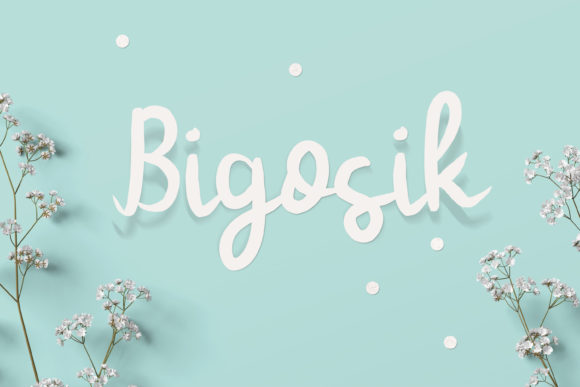
The Bigosik Font: A Simple yet Cheerful Companion for Your Design Journey
An Honest Review of Bigosik
- ✨ Simple and cheerful personality that adds a touch of warmth to any design
- ✅ Neat and flowing style that’s perfect for a wide variety of designs, from wedding invitations to craft projects
- 💫 Highly legible, even at smaller font sizes
- 🎨 Versatile and can be used for both digital and print projects
While Bigosik is an excellent font, it’s not without its quirks. For example:
- 🤔 It can be a bit too casual for very formal projects, such as corporate branding or law firm websites
The Story Behind Bigosik
Bigosik was designed by a talented font designer who wanted to create a font that was both simple and cheerful. The designer drew inspiration from traditional Polish typography and wanted to create a font that was both elegant and approachable. The result is a font that’s perfect for a wide range of design projects, from formal events to crafty DIY projects.
| Font Name | Bigosik Font |
| Author | DIGI Potwor |
| What is Bigosik? | Bigosik is a simple and cheerful handwritten font that’s perfect for a wide range of design projects. |
| Does Bigosik support OpenType features? | Yes, Bigosik supports OpenType features, including glyphs and stylistic alternates. However, the level of support may vary depending on the software you’re using. |